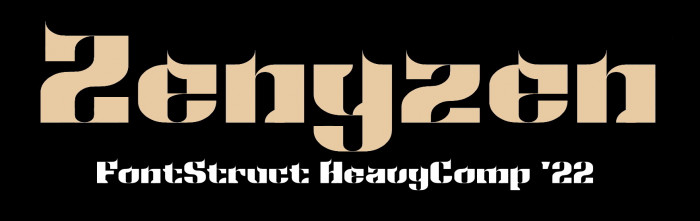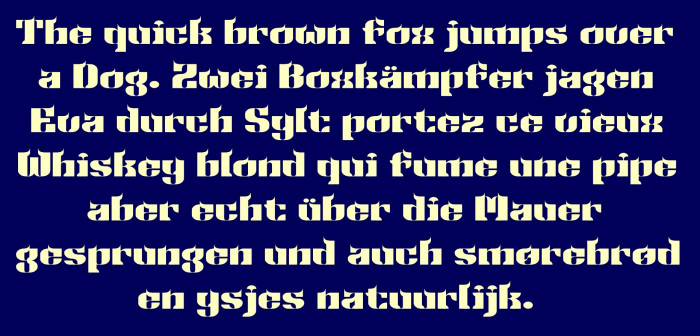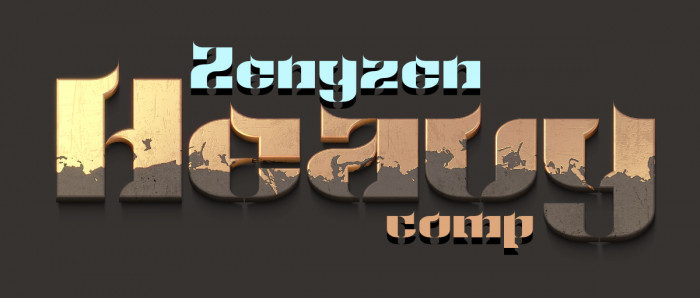
It reminds me of some oriental writing system, very interesting and unusual forms, excellent font.
@Dmitriy Sychiov: Thank you! I was looking to do something heavy and annoying, I hope I managed to get a little closer to the original idea.